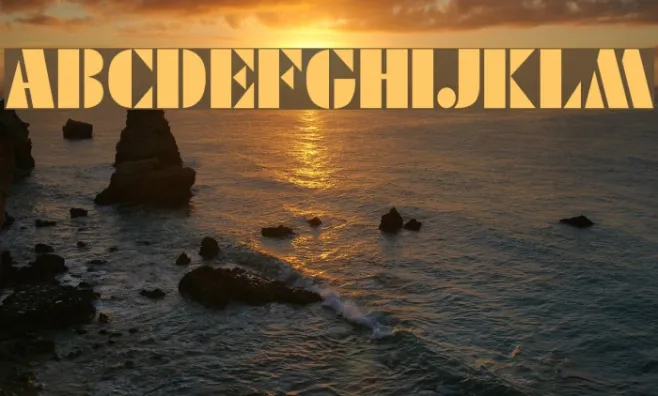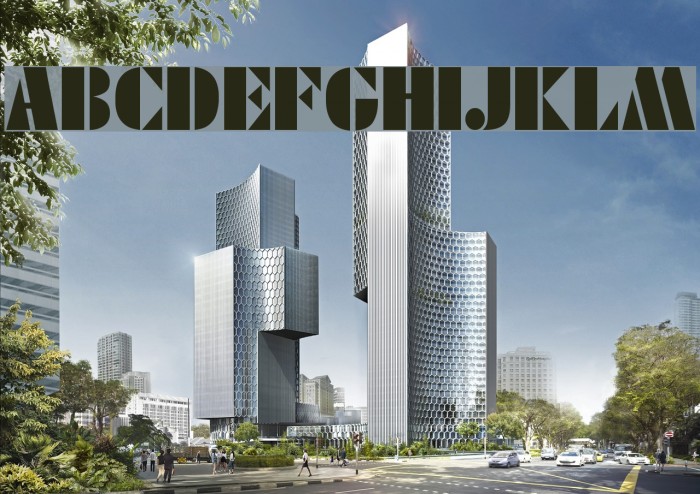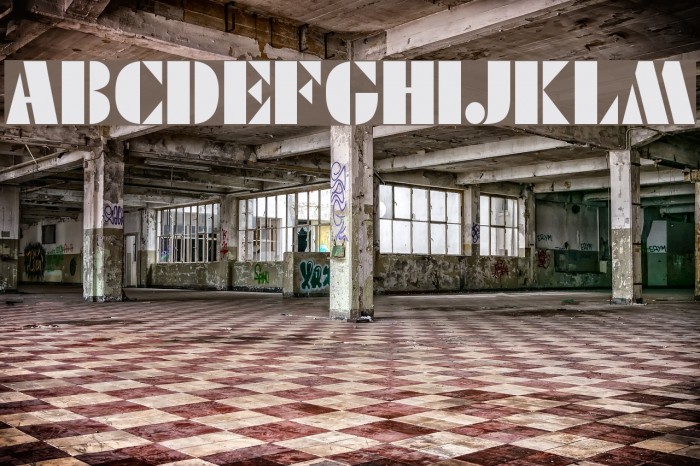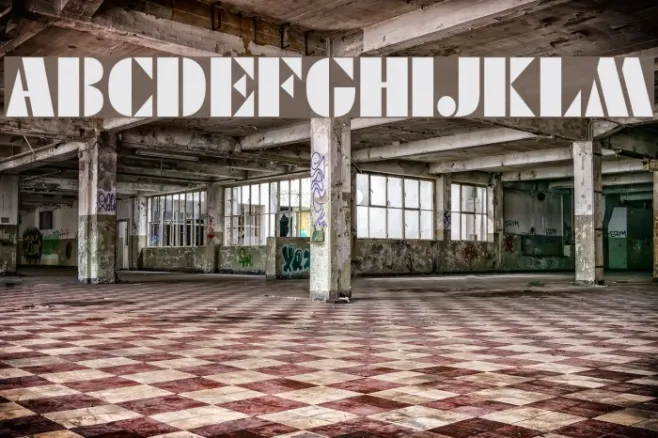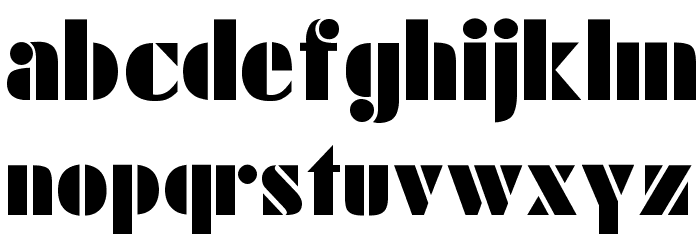
Futuri-Black-Normal Font
Futuri-Black-Normal Description
This font features bold, geometric shapes with a modern and striking appearance. The characters are constructed with sharp angles and clean lines, creating a sense of strength and impact. The uppercase letters are particularly distinctive, with some incorporating unique cut-out shapes that add to the font's dynamic style. The lowercase letters maintain a consistent weight and structure, complementing the uppercase set. Numbers and special characters follow the same bold and geometric design, ensuring a cohesive look across all elements. This font is ideal for making a strong visual statement.
| Proposed Projects | Ideal for branding, posters, headlines, and any project requiring a strong visual impact. |